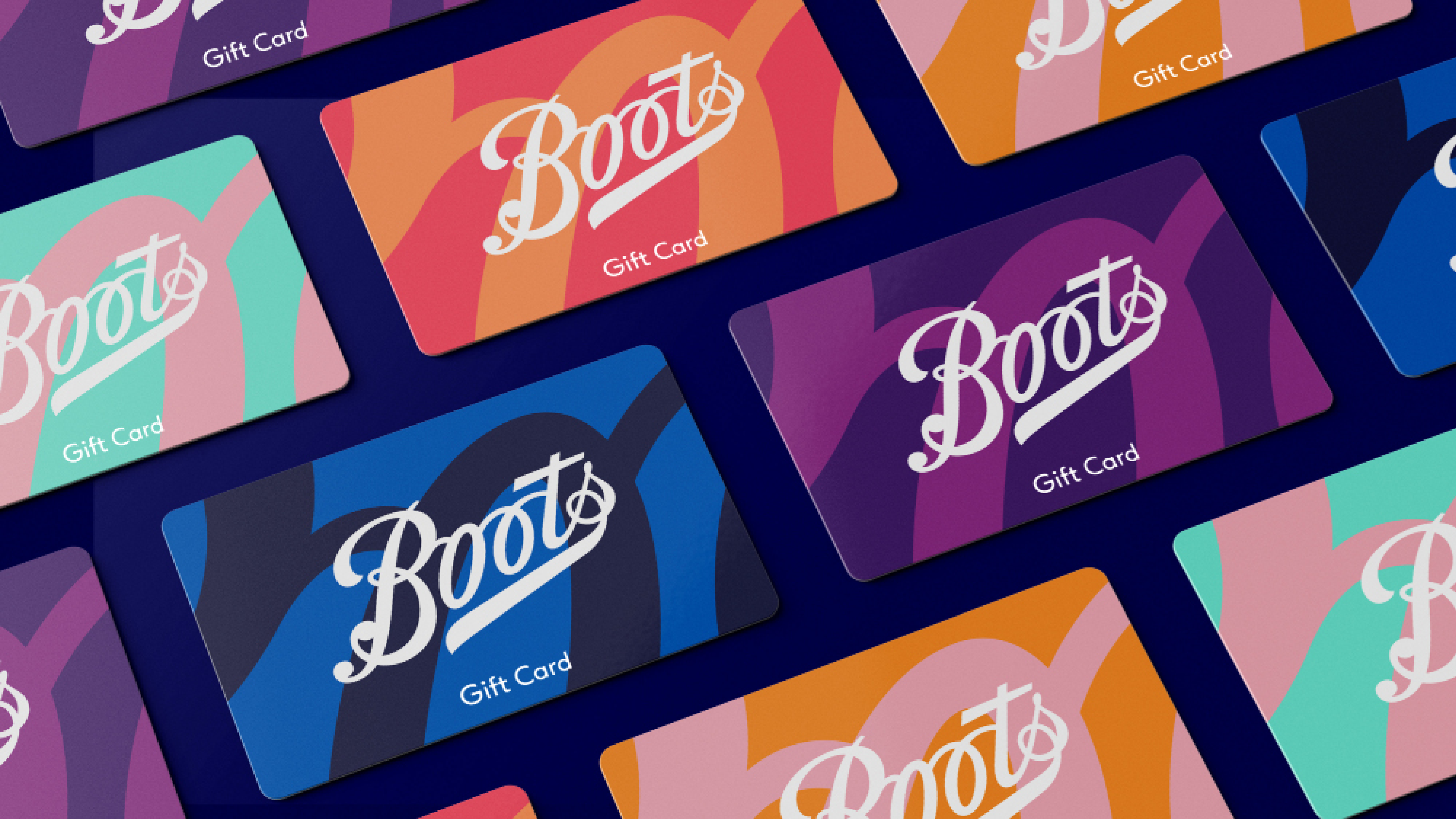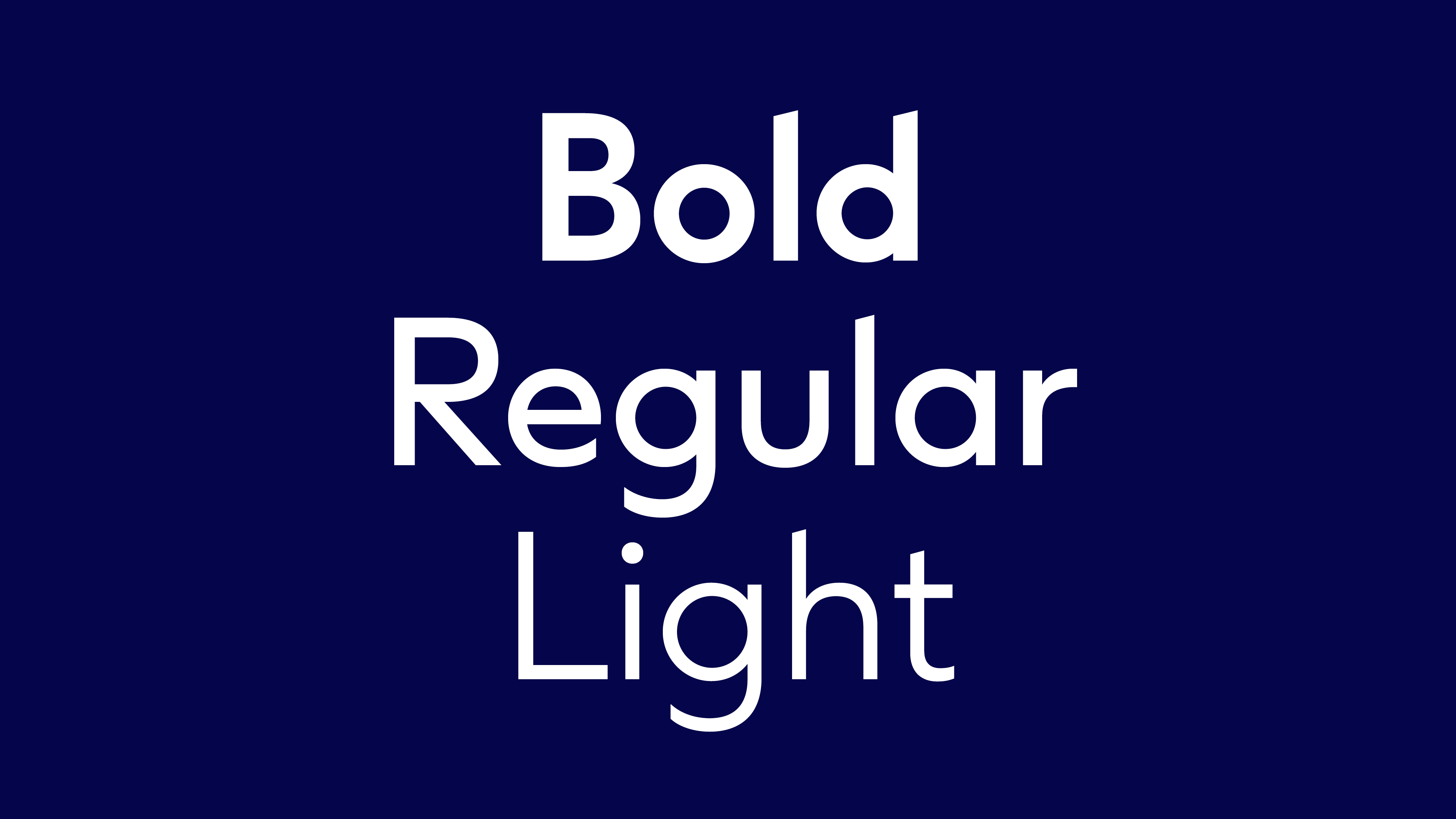
High-street stalwart Boots was looking a bit jaded, but a dose of F37 Ginger had it back to the best of health.
Boots, the pharmacist-beauty chain, is a familiar sight on the British High Street. Its branding hadn’t changed much since the 1960s and was starting to look a little tired, so a thorough refresh was in order.
We were commissioned by Coley Porter Bell and True Story to create a customised version of F37 Ginger as part of an extensive rebrand of the high-street chemist across 1000’s of stores, their website, apps, social platforms and campaigns.
F37 Ginger is a pleasing, contemporary-looking sans serif face that’s versatile and friendly. We specially created a bespoke version that’s more precise and modern by redrawing sharper terminals and straighter lines, moving away from the cuddly rounded sans Boots had used previously.